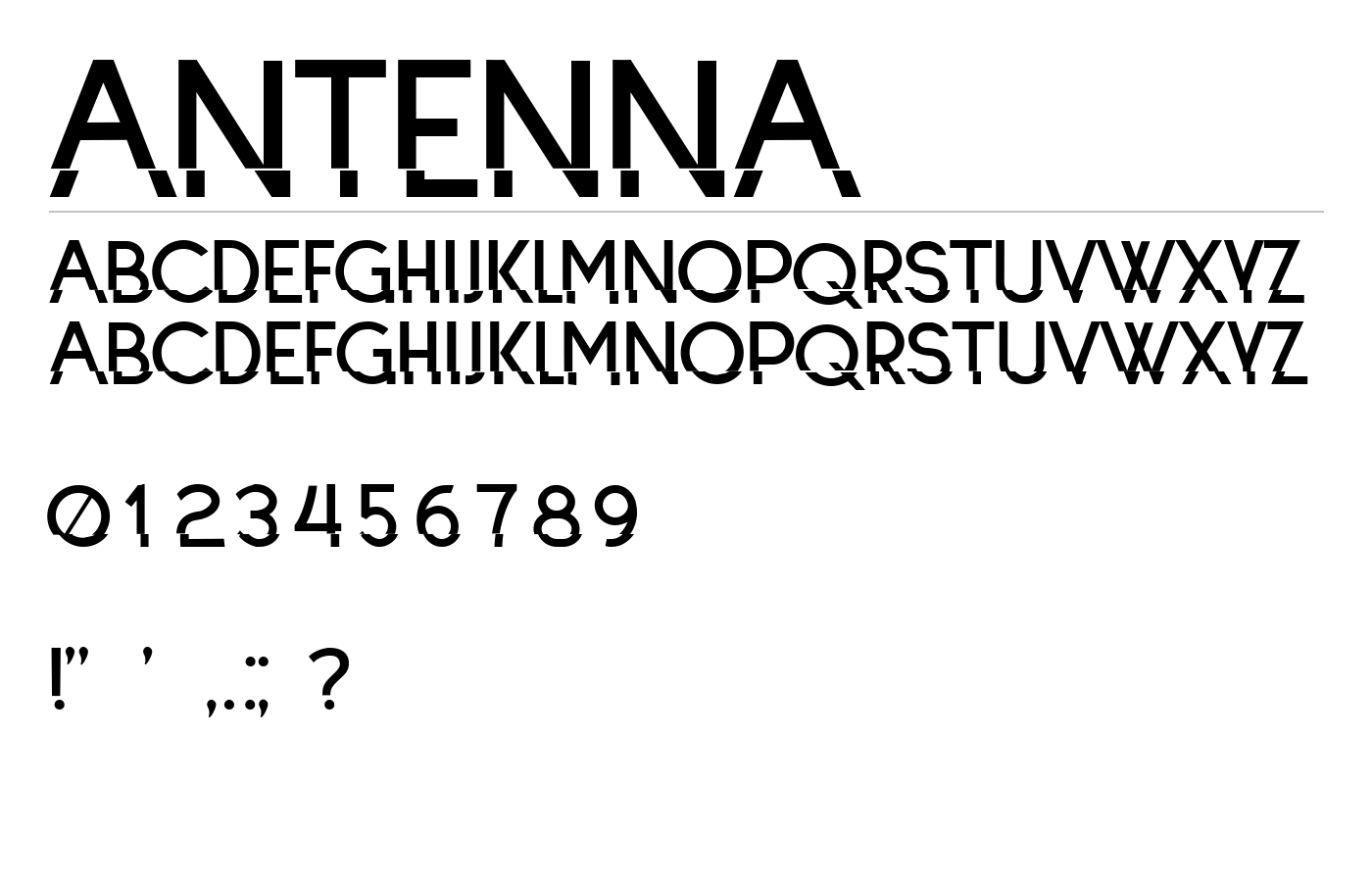
Antenna is a modern sans serif font featuring a clean, geometric design with medium weight and a condensed width that gives it a sharp, technical feel. Its high x-height and uniform stroke contrast combine with unique details like angled terminals and a distinct Q tail, making it ideal for contemporary branding, editorial headlines, and tech-focused design projects seeking a sleek, professional look. This font’s precise and elegant style works well in both print and digital media where clarity and modernity are key.
Antenna Font
About Antenna Font